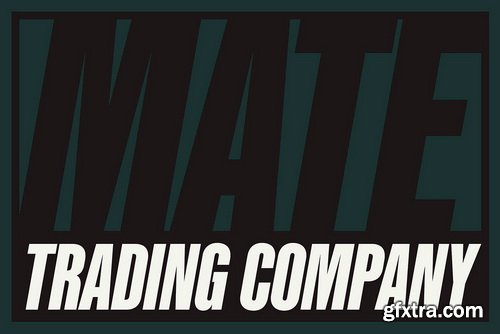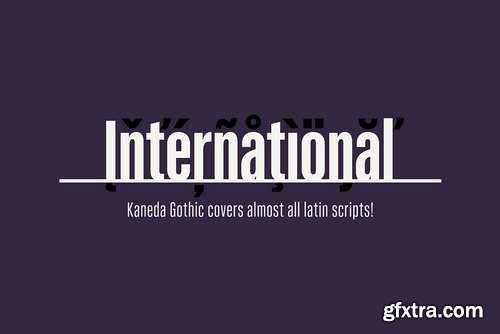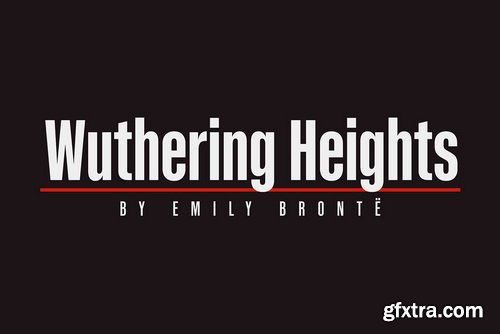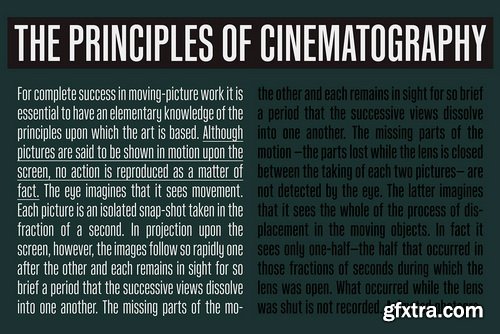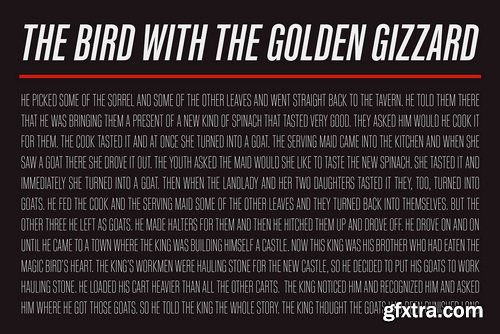
Kaneda Gothic Font Family
Technically, Kaneda Gothic has a geometric letterform which called "gaspipe" or
"Gothic" in woodtype era. But Kaneda has very sharp curves and
lines for contemporary demands, that is to say, impact and clearness.
Geometric and clear letterform is perfect for eye-catching part such like
company logo, movie title and picture's captions.
Technically, Kaneda Gothic has a geometric letterform which called "gaspipe" or
"Gothic" in woodtype era. But Kaneda has very sharp curves and
lines for contemporary demands, that is to say, impact and clearness.
Geometric and clear letterform is perfect for eye-catching part such like
company logo, movie title and picture's captions.